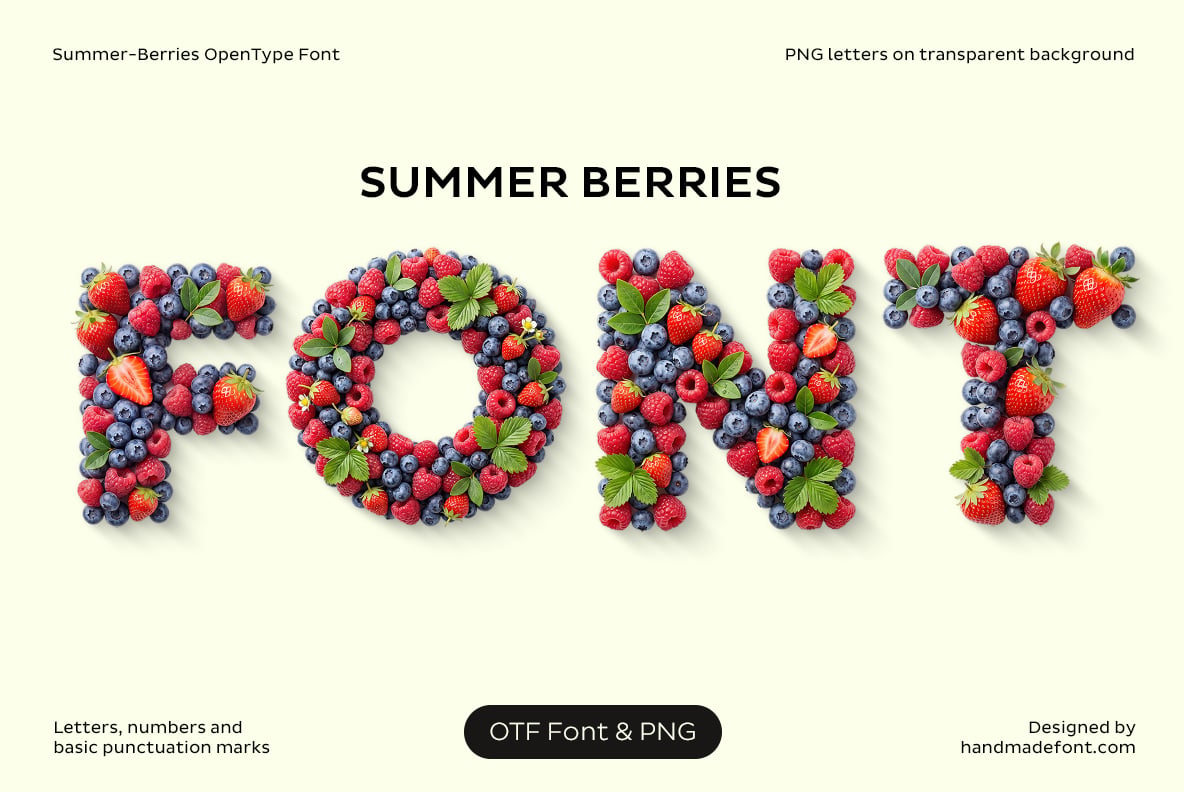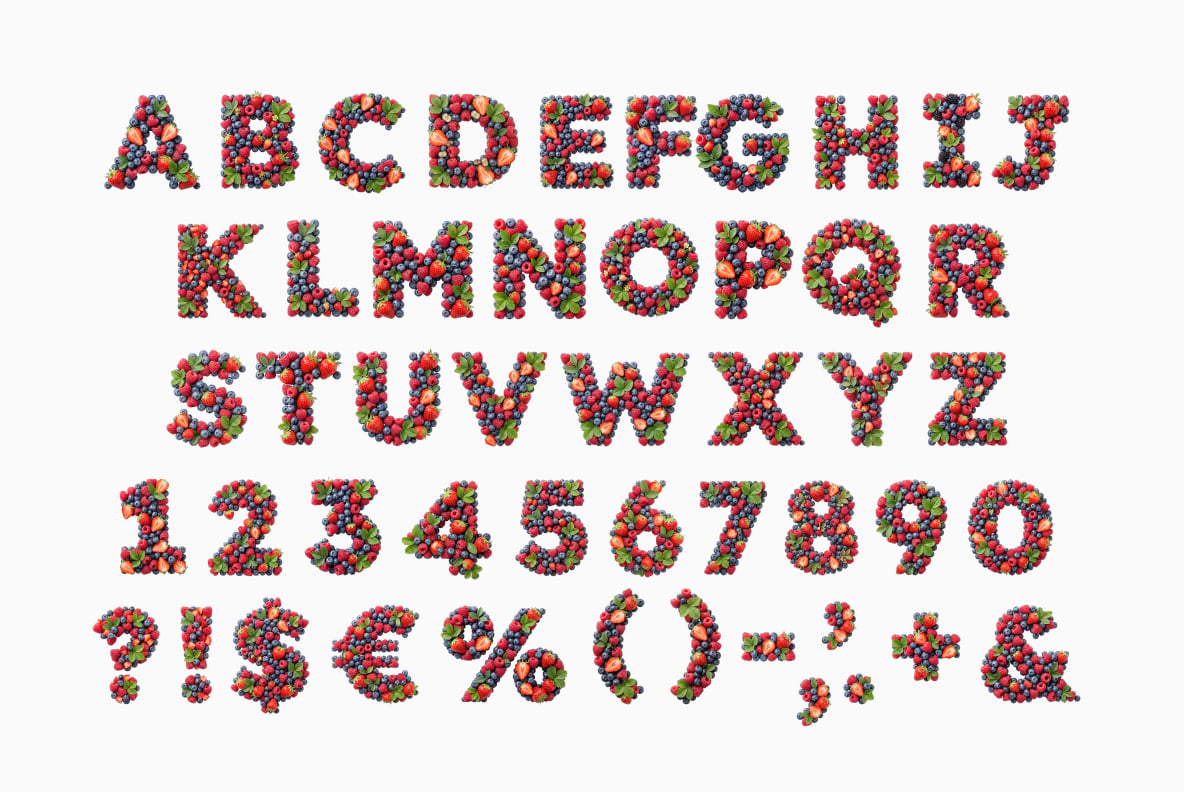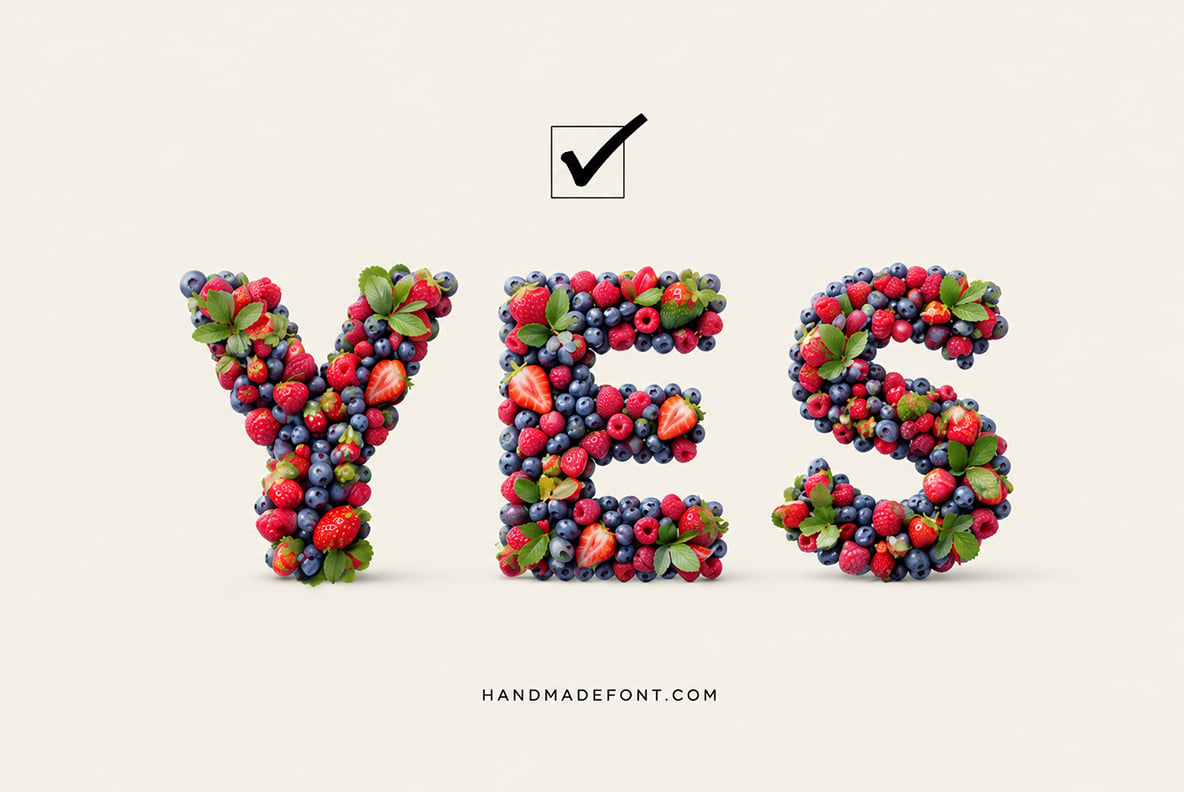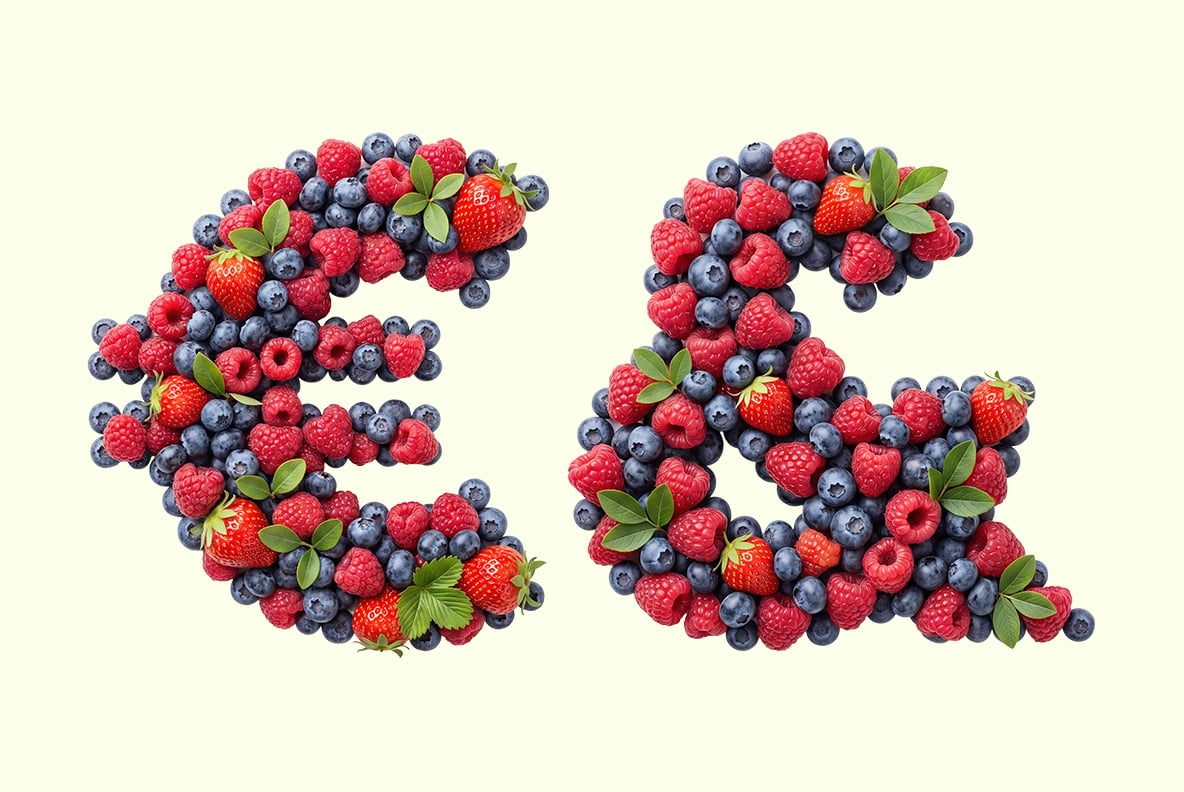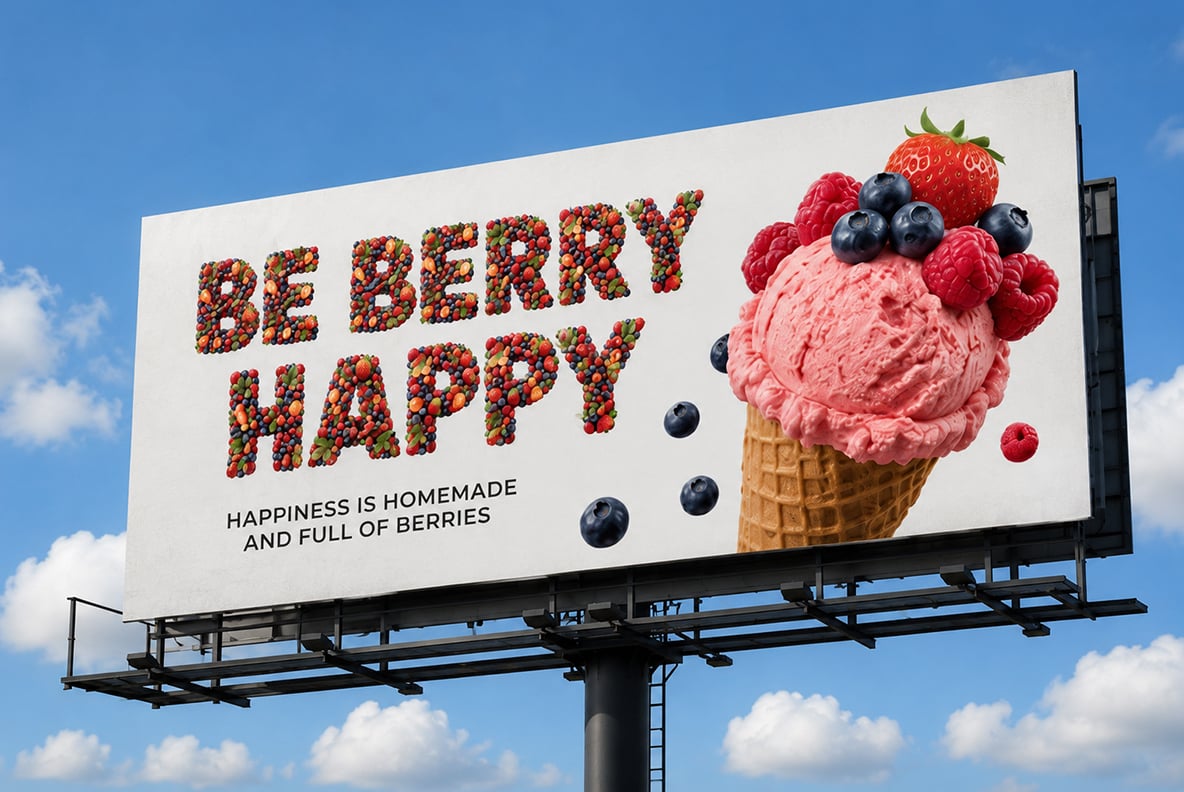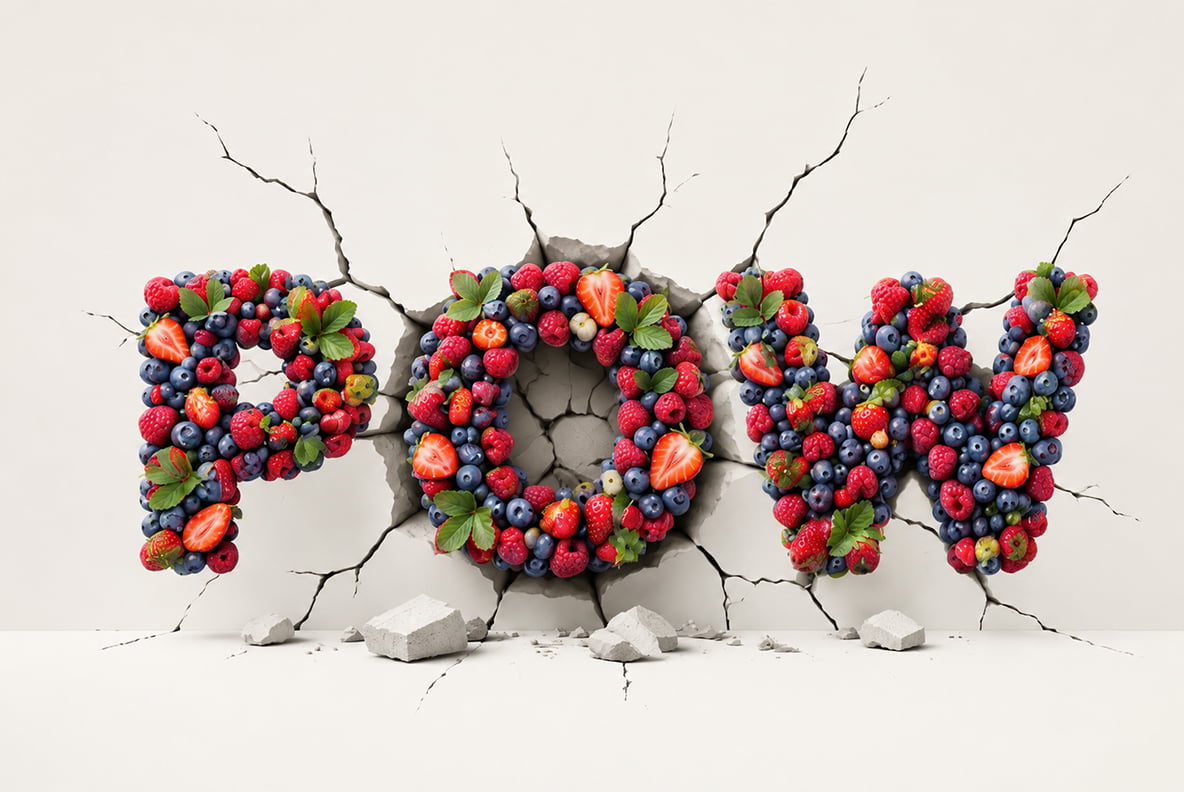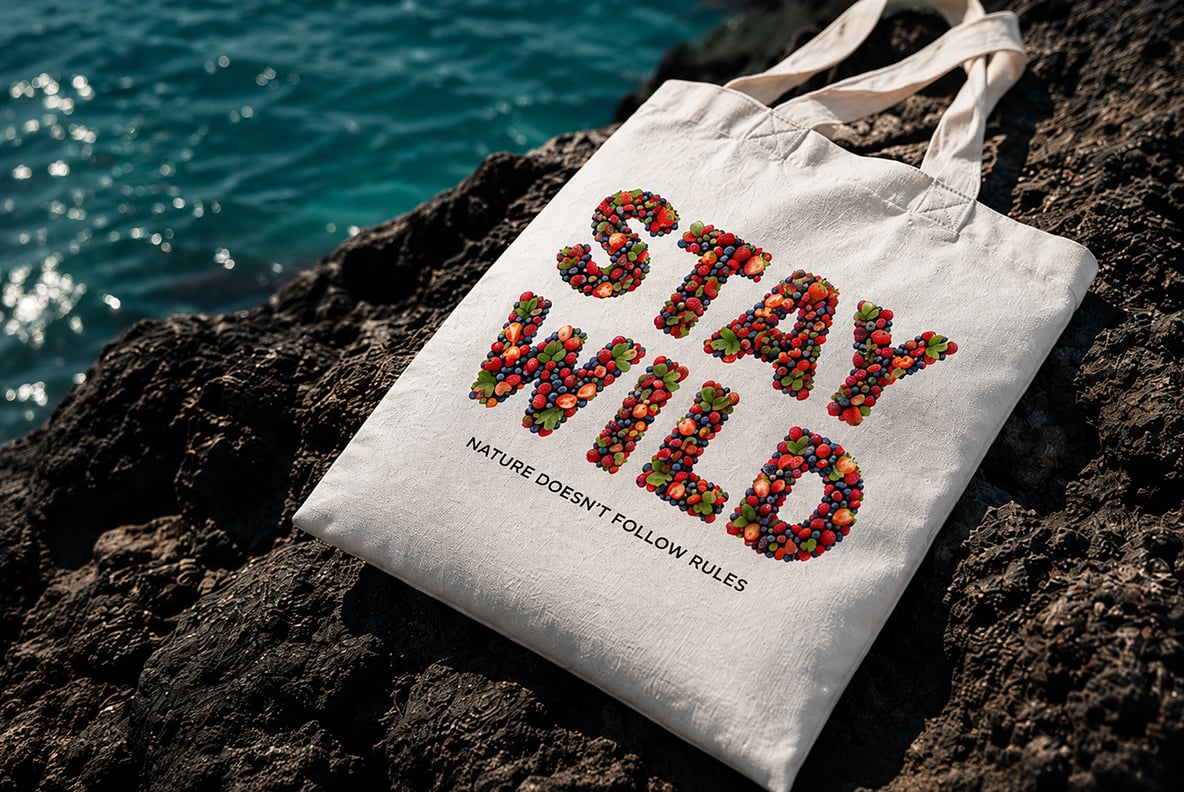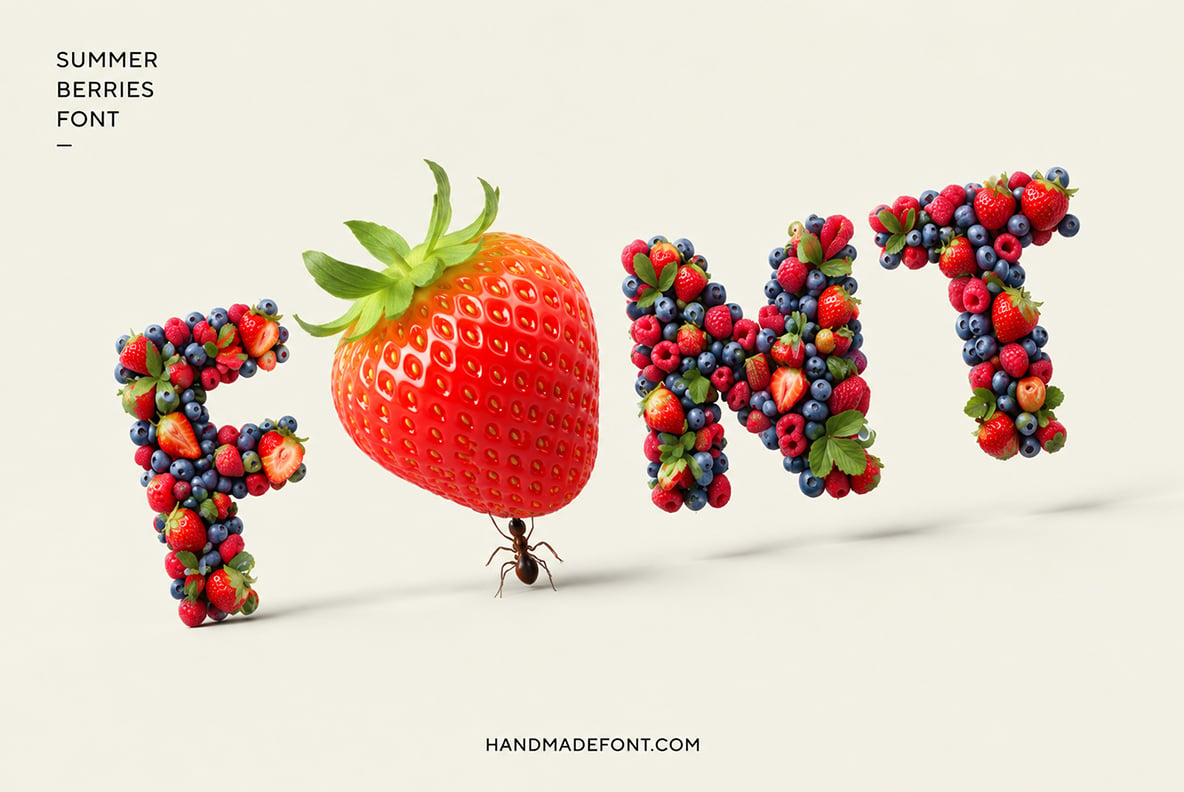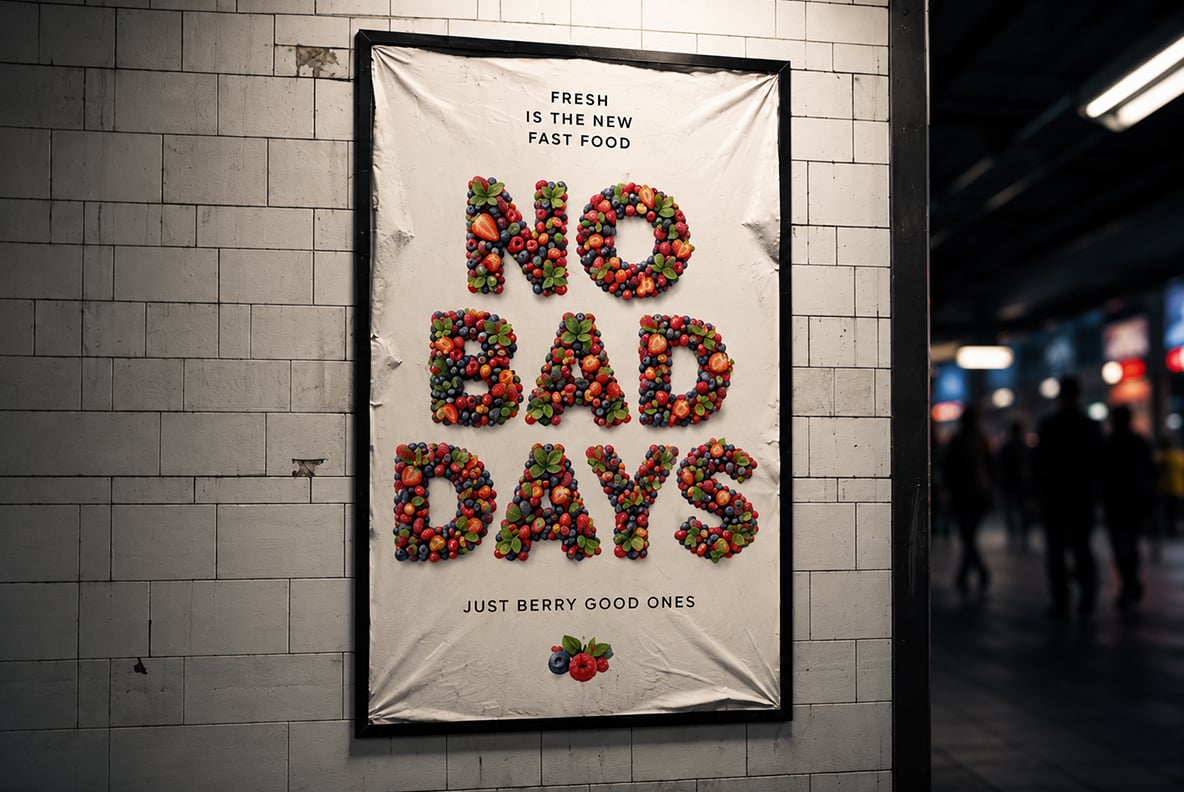
Summer Berries Font
Summer Berries Font brings the freshness of a vibrant berry harvest into every design. Crafted from realistic strawberries, raspberries, blueberries, and green leaves, this playful typeface adds natural charm and colorful personality to branding, packaging, social media, invitations, posters, seasonal promotions, and creative projects. The package includes a high-quality OpenType (OTF) font for easy typing, plus individual PNG letters with transparent backgrounds, giving you complete creative freedom for custom layouts, logos, and illustrations. Whether you're designing for summer events, food brands, farmers markets, or cheerful handmade products, Summer Berries Font delivers a juicy, eye-catching style full of warmth, freshness, and fun.